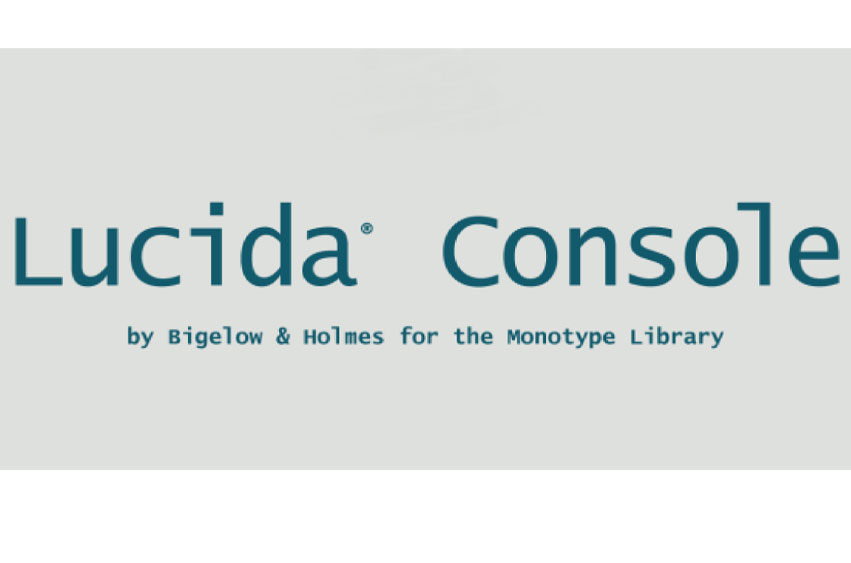
Lucida Console Font
Lucida Console Font is one of the families of fonts that was developed by Charles Bigelow and Kris Holmes in the year 1984 and became available for use since that year. Its goal is to be very usable when printed at a smaller size or displayed at a lower quality; that is why its name is derived from the word “lucid” which means clear or easy to read.
There are several types of Lucida, it has serif (Fax and Bright) and those that do not have Serif (Sans, Sans Unicode Grande Sans Typewriter and Sans Typewriter) and script styles (Blackletter Calligraphy Handwriting) that may also come with other programs like the Microsoft Office.
Bigelow & Holmes and the now defunct TeX vendor Y&Y expanded the Lucida font family with a complete set of TeX mathematical symbols; for this reason, Lucida is one of the few fonts that support both text and mathematical TeX typesetting. Lucida fonts can be bought for commercial use from TUG Store and from the creators’ website; the fonts are relatively frequently updated.